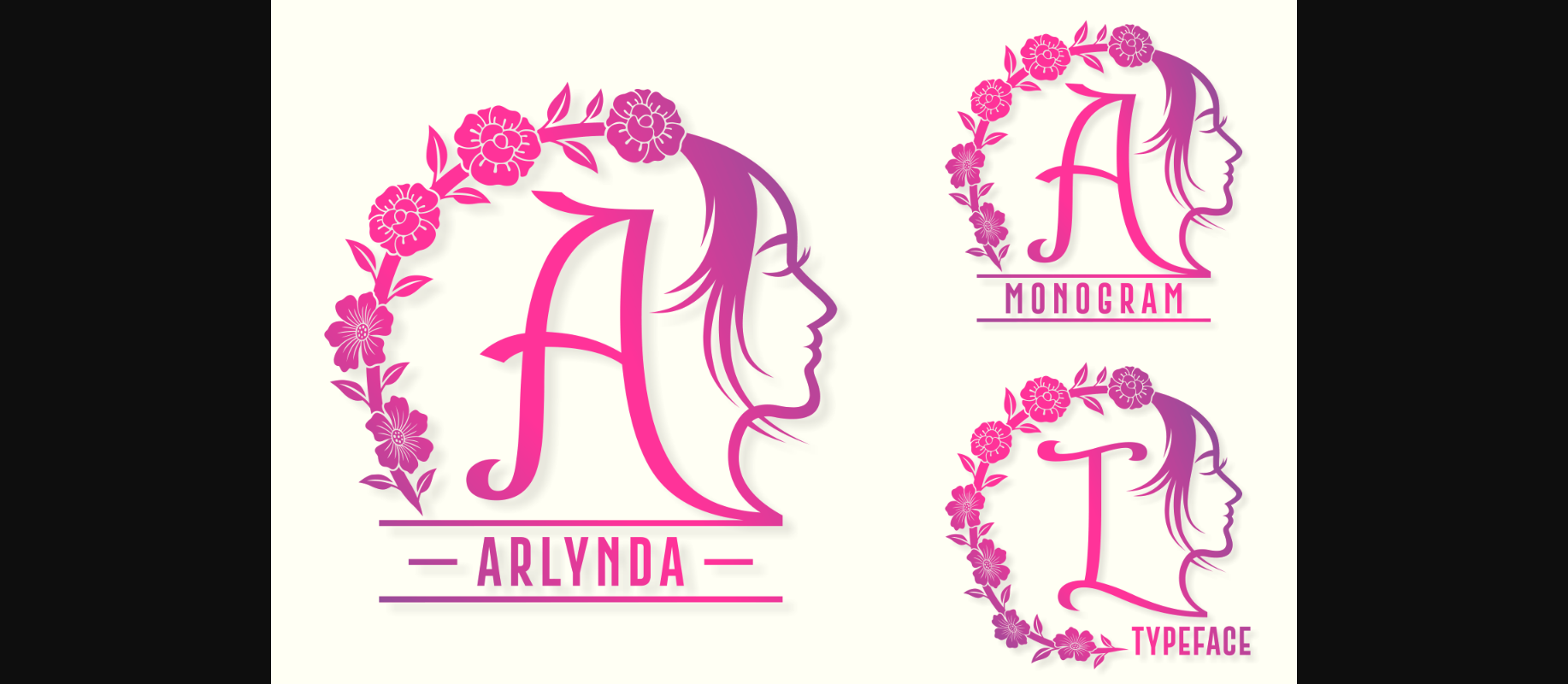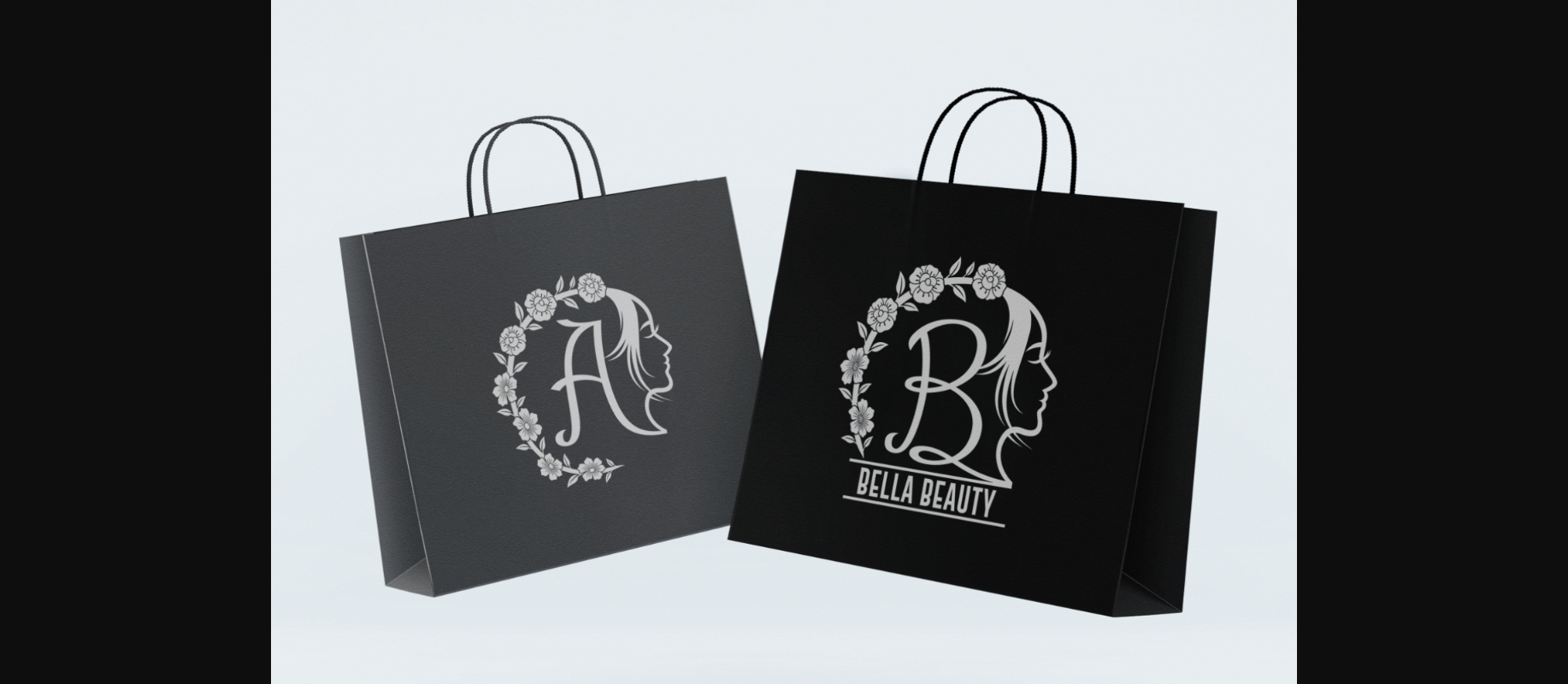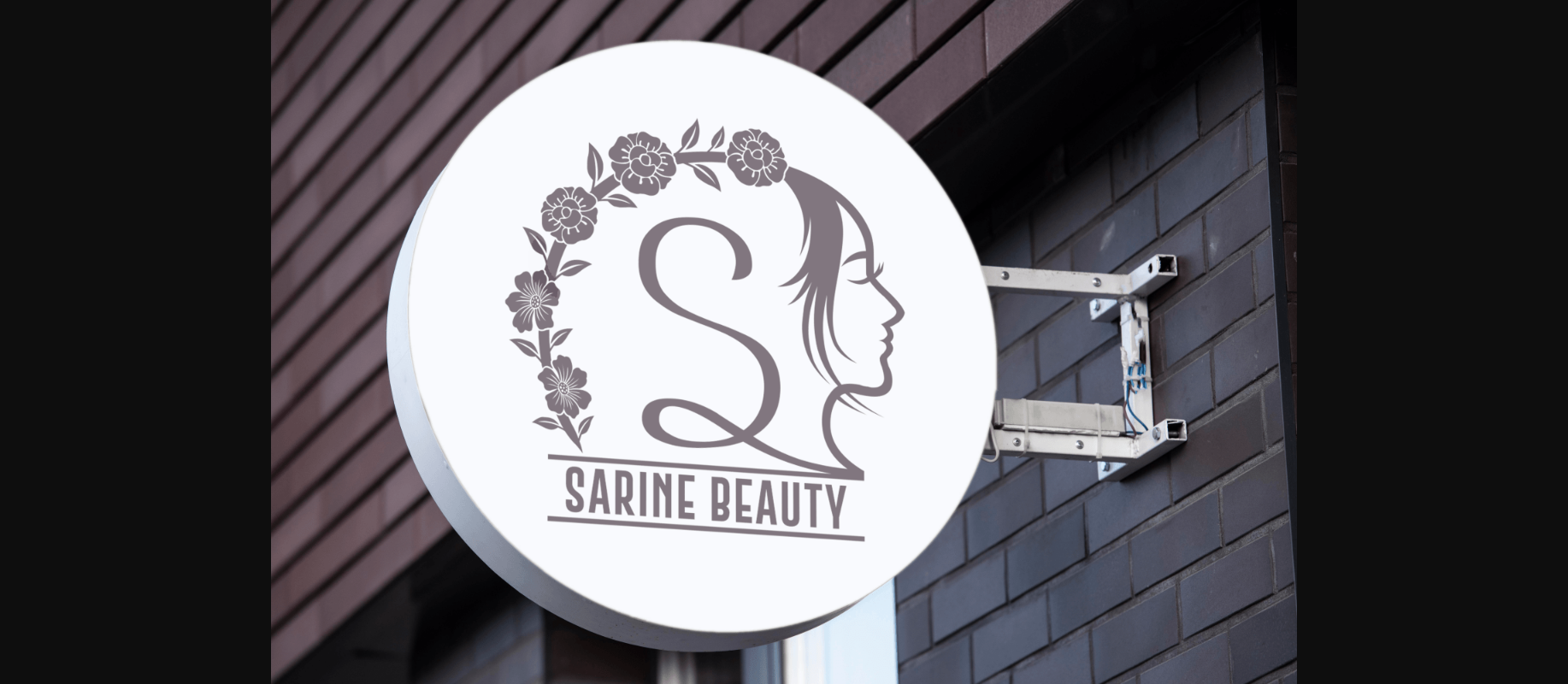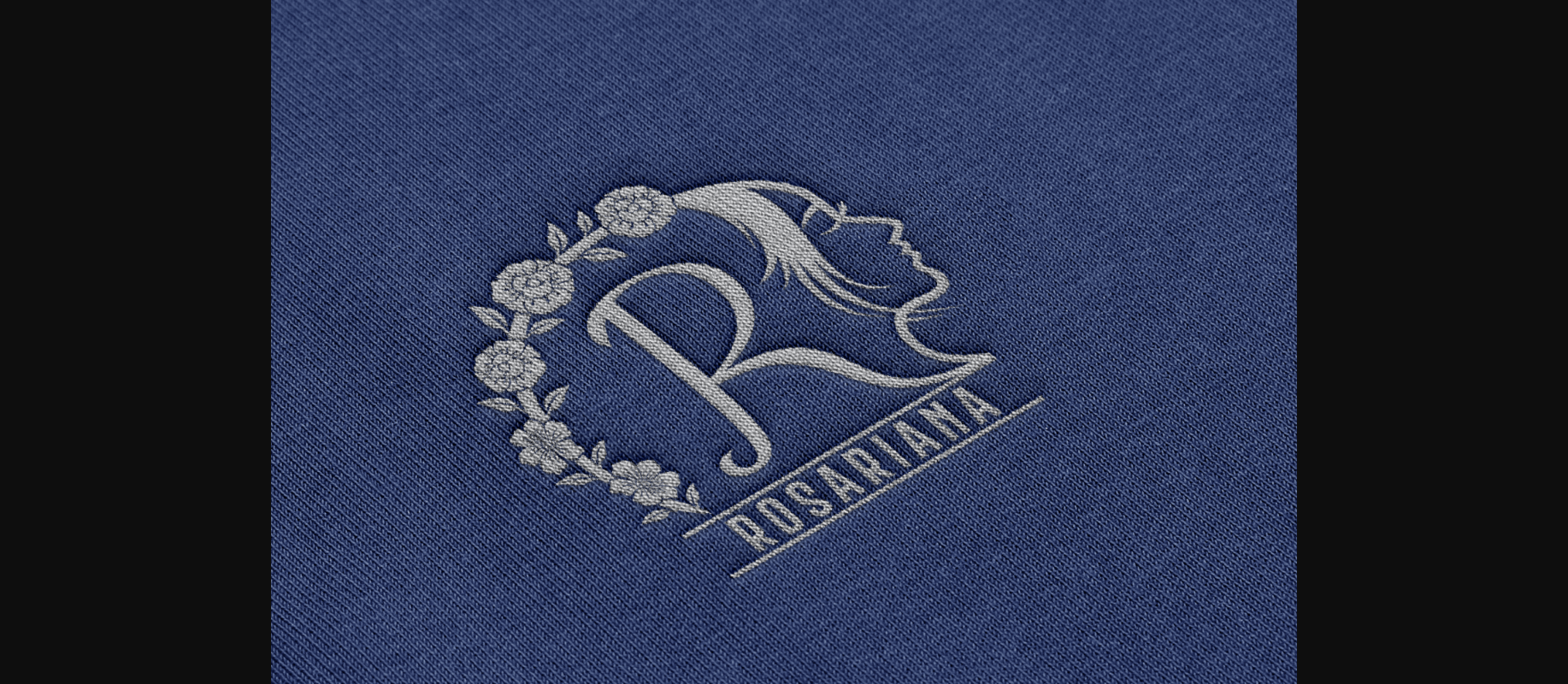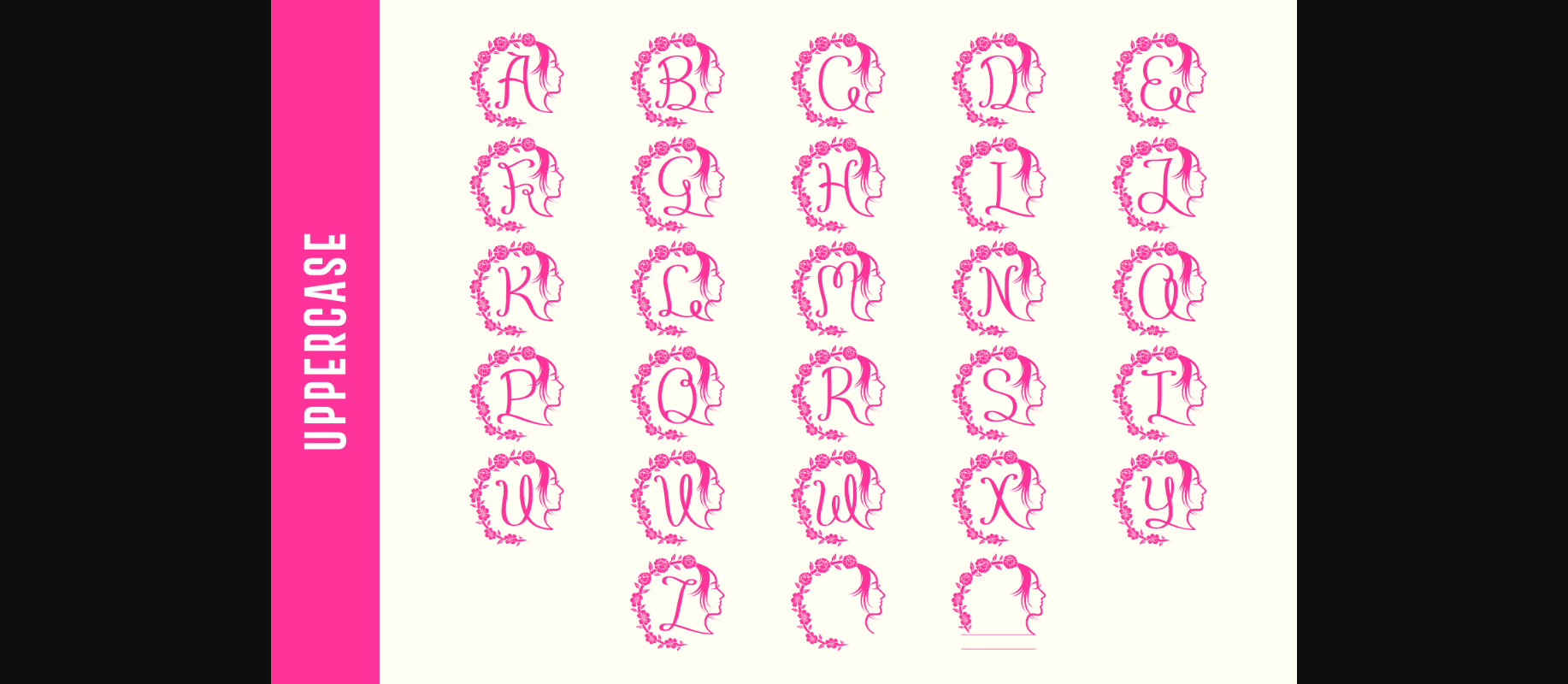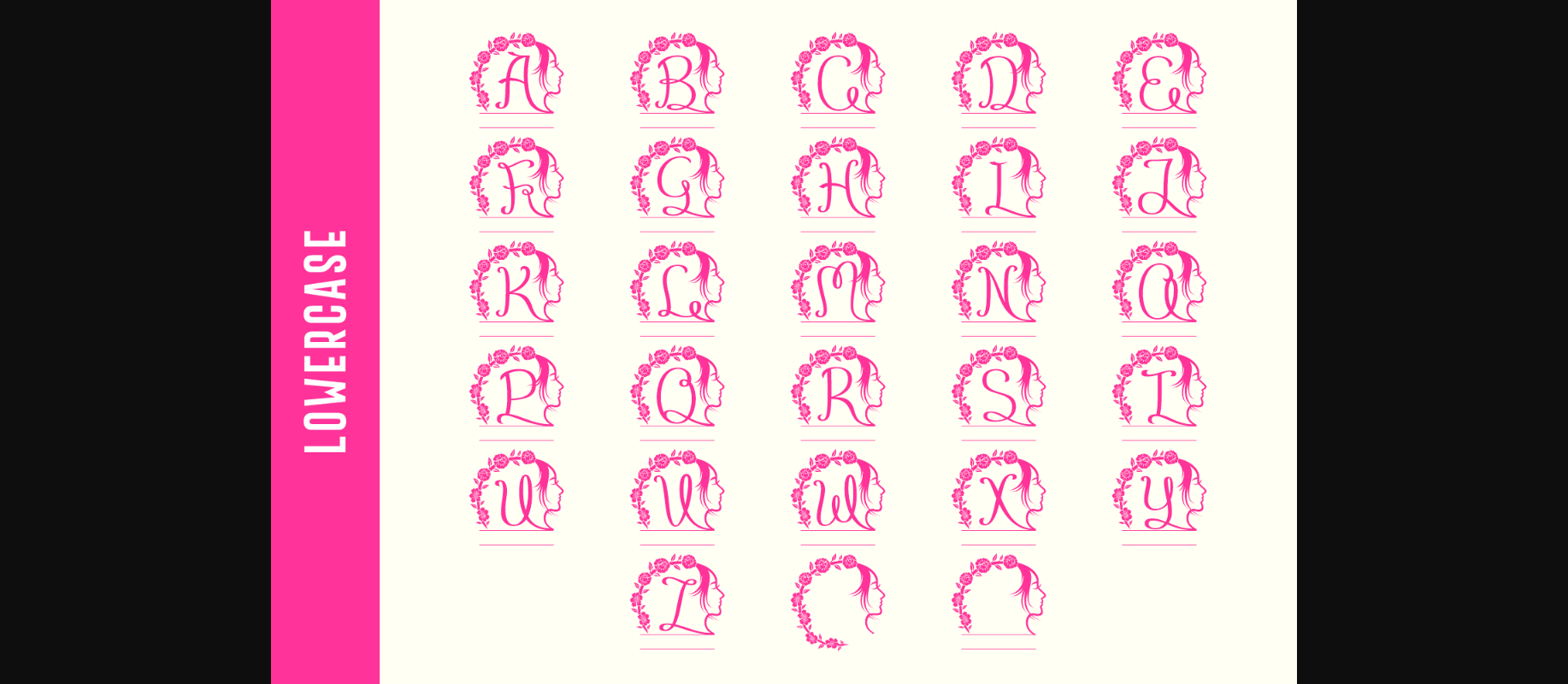
Arlynda Font
About Arlynda Font
Arlynda is a beautiful decorative font, featuring elegant flowers. Get inspired by its authentic feel and use it to create gorgeous wedding invitations, lovely stationary art, eye-catching social media posts, and cute greeting cards.